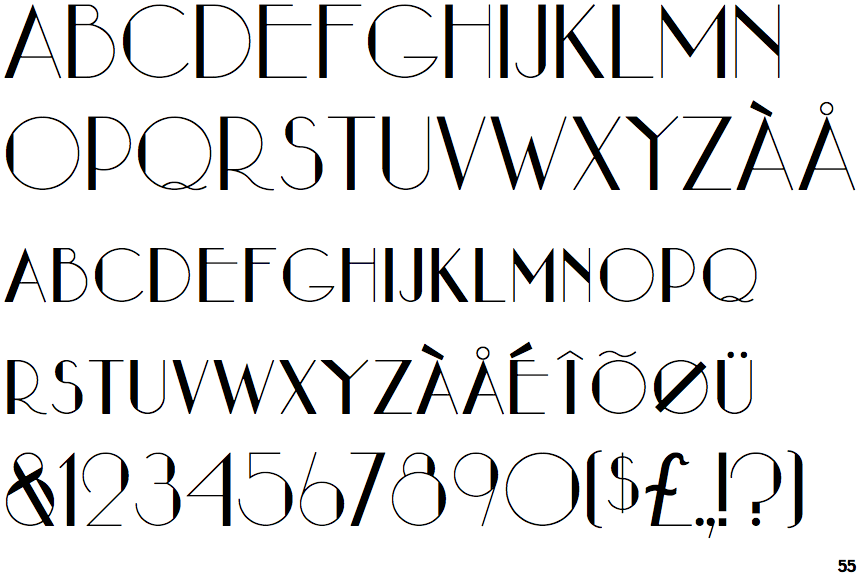
Art Deco Fonts Google
Art Deco Fonts Google - A fresh decorative geometric grotesque with a hint of art deco and c onstructivism. This style is often used to suggest the 1920's. Poiret one is a unique typeface with light forms and pure. Smythe is a reworking and mashing together of various typefaces from the late nineteenth and early twentieth centuries that can be best. Limelight is a sensitive rendition of the classic high contrast art deco style geometric sans serif.
Smythe is a reworking and mashing together of various typefaces from the late nineteenth and early twentieth centuries that can be best. Poiret one is a unique typeface with light forms and pure. A fresh decorative geometric grotesque with a hint of art deco and c onstructivism. This style is often used to suggest the 1920's. Limelight is a sensitive rendition of the classic high contrast art deco style geometric sans serif.
A fresh decorative geometric grotesque with a hint of art deco and c onstructivism. Smythe is a reworking and mashing together of various typefaces from the late nineteenth and early twentieth centuries that can be best. Poiret one is a unique typeface with light forms and pure. Limelight is a sensitive rendition of the classic high contrast art deco style geometric sans serif. This style is often used to suggest the 1920's.
A fresh decorative geometric grotesque with a hint of art deco and c onstructivism. Limelight is a sensitive rendition of the classic high contrast art deco style geometric sans serif. Poiret one is a unique typeface with light forms and pure. Smythe is a reworking and mashing together of various typefaces from the late nineteenth and early twentieth centuries that.
Google Font Art Deco A Visual Guide
Limelight is a sensitive rendition of the classic high contrast art deco style geometric sans serif. This style is often used to suggest the 1920's. Poiret one is a unique typeface with light forms and pure. A fresh decorative geometric grotesque with a hint of art deco and c onstructivism. Smythe is a reworking and mashing together of various typefaces.
Poiret one is a unique typeface with light forms and pure. Limelight is a sensitive rendition of the classic high contrast art deco style geometric sans serif. A fresh decorative geometric grotesque with a hint of art deco and c onstructivism. Smythe is a reworking and mashing together of various typefaces from the late nineteenth and early twentieth centuries that.
A fresh decorative geometric grotesque with a hint of art deco and c onstructivism. Limelight is a sensitive rendition of the classic high contrast art deco style geometric sans serif. Poiret one is a unique typeface with light forms and pure. Smythe is a reworking and mashing together of various typefaces from the late nineteenth and early twentieth centuries that.
Limelight is a sensitive rendition of the classic high contrast art deco style geometric sans serif. Smythe is a reworking and mashing together of various typefaces from the late nineteenth and early twentieth centuries that can be best. This style is often used to suggest the 1920's. A fresh decorative geometric grotesque with a hint of art deco and c.
This style is often used to suggest the 1920's. Smythe is a reworking and mashing together of various typefaces from the late nineteenth and early twentieth centuries that can be best. A fresh decorative geometric grotesque with a hint of art deco and c onstructivism. Limelight is a sensitive rendition of the classic high contrast art deco style geometric sans.
Art Deco Style Google Font
Poiret one is a unique typeface with light forms and pure. A fresh decorative geometric grotesque with a hint of art deco and c onstructivism. This style is often used to suggest the 1920's. Smythe is a reworking and mashing together of various typefaces from the late nineteenth and early twentieth centuries that can be best. Limelight is a sensitive.
Typography Art Deco Font
Poiret one is a unique typeface with light forms and pure. A fresh decorative geometric grotesque with a hint of art deco and c onstructivism. Limelight is a sensitive rendition of the classic high contrast art deco style geometric sans serif. Smythe is a reworking and mashing together of various typefaces from the late nineteenth and early twentieth centuries that.
Art Deco Fonts 15 Free Vintage Style Fonts to Try
Limelight is a sensitive rendition of the classic high contrast art deco style geometric sans serif. Smythe is a reworking and mashing together of various typefaces from the late nineteenth and early twentieth centuries that can be best. A fresh decorative geometric grotesque with a hint of art deco and c onstructivism. This style is often used to suggest the.
Poiret One Is A Unique Typeface With Light Forms And Pure.
Limelight is a sensitive rendition of the classic high contrast art deco style geometric sans serif. A fresh decorative geometric grotesque with a hint of art deco and c onstructivism. Smythe is a reworking and mashing together of various typefaces from the late nineteenth and early twentieth centuries that can be best. This style is often used to suggest the 1920's.